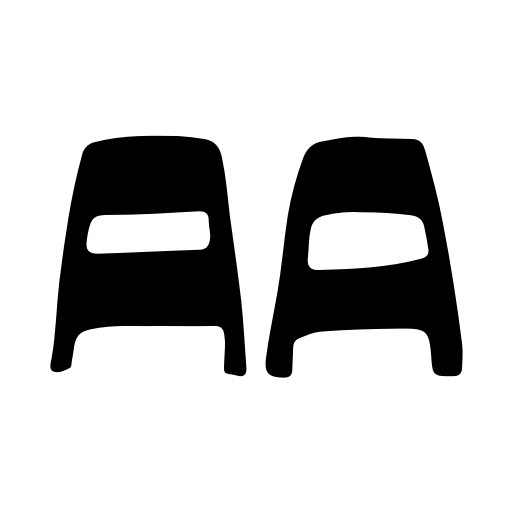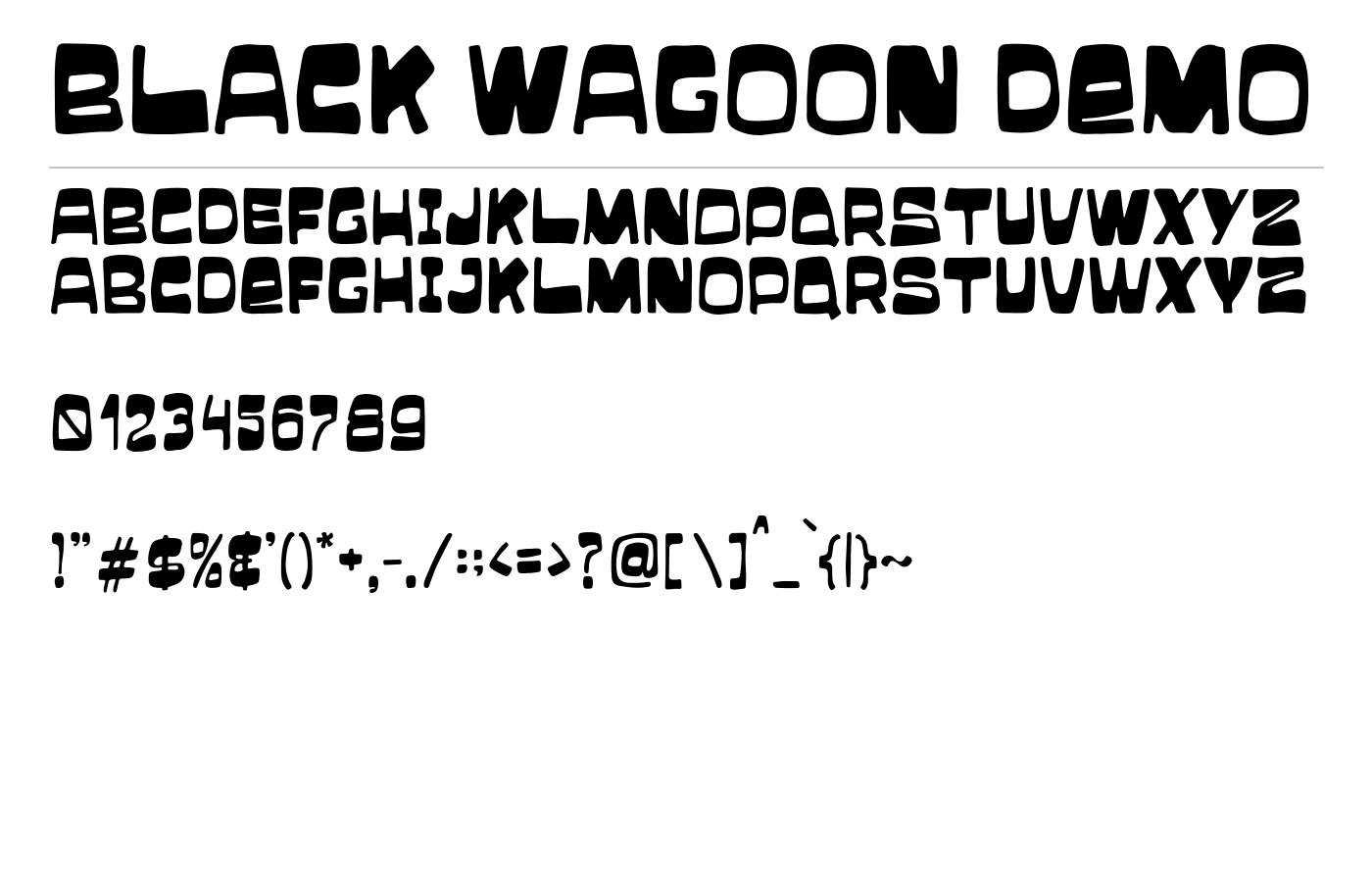
Black Wagoon Demo is a bold, playful sans serif font with a quirky, hand-drawn feel. Its thick, irregular strokes and slightly condensed letterforms create a fun, informal vibe perfect for casual, creative projects, making it great for headlines, posters, and branding that seeks a lighthearted and approachable personality. This font works well where a unique, eye-catching style is needed to grab attention without the seriousness of traditional typefaces.
Black Wagoon Demo Font
About Black Wagoon Demo Font
| Font family | Black Wagoon Demo Font |